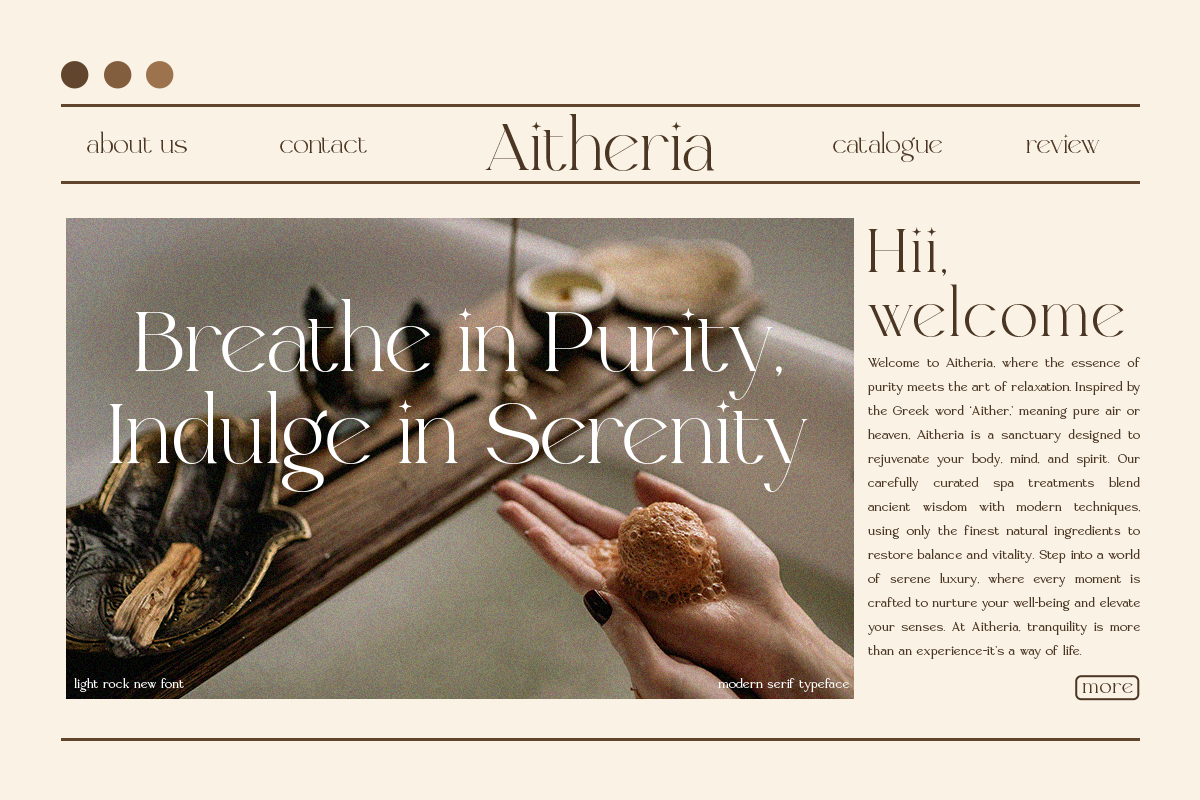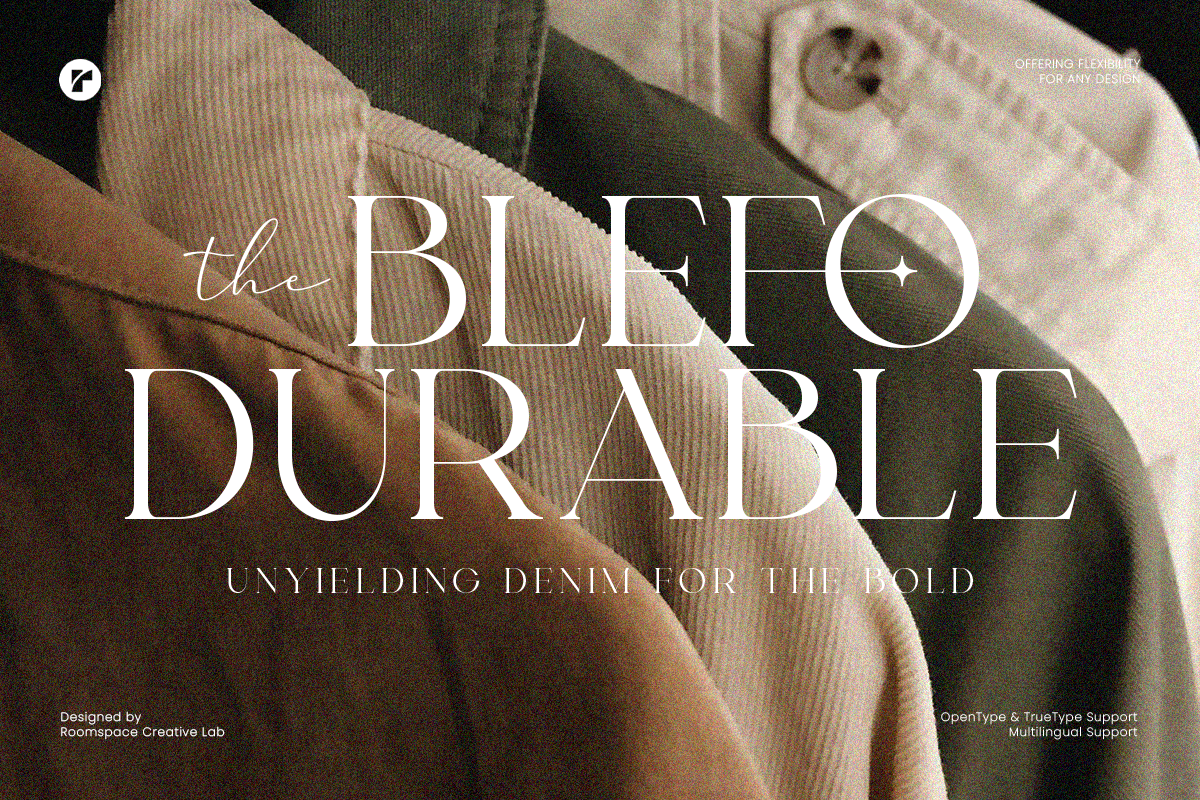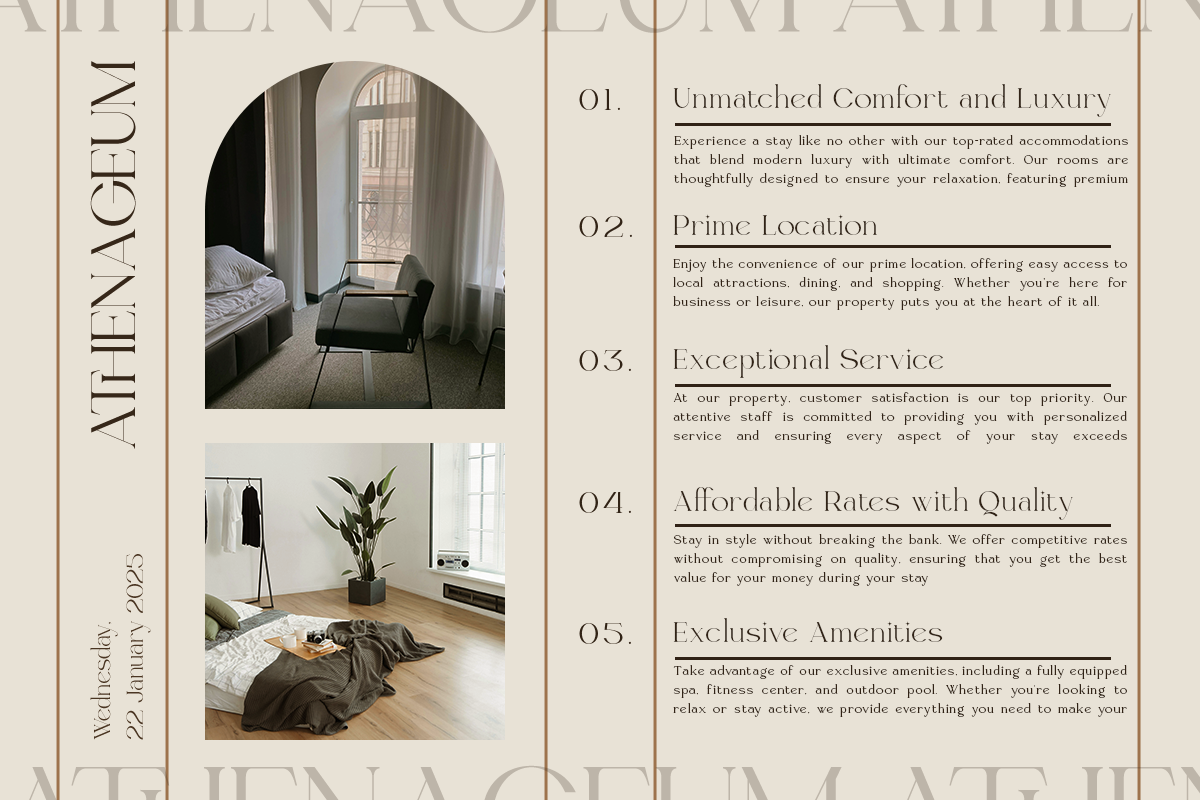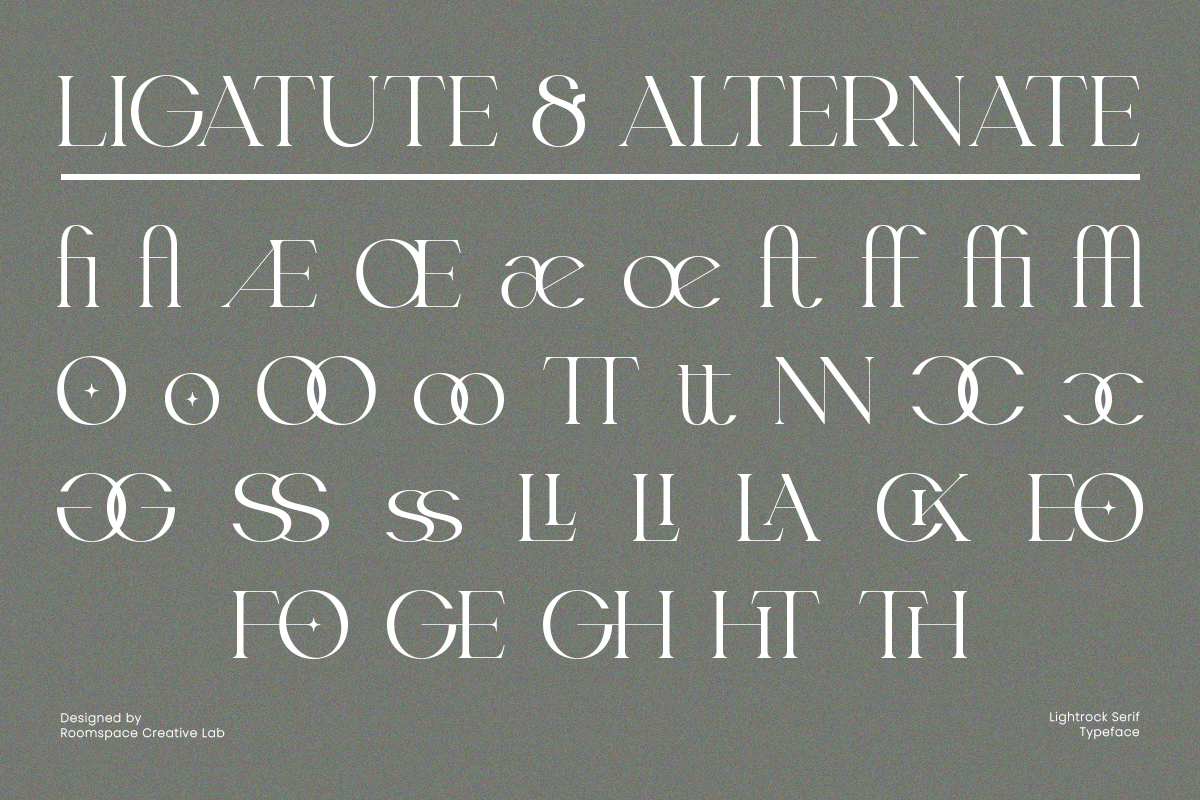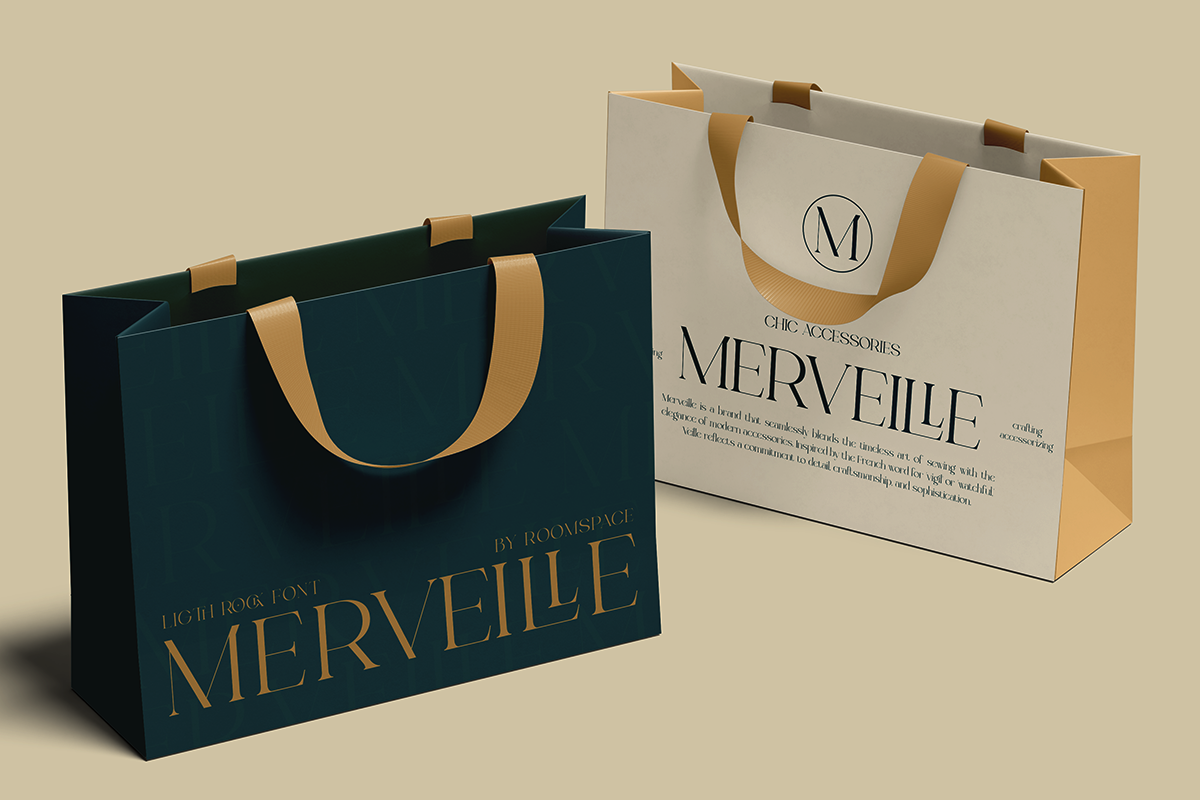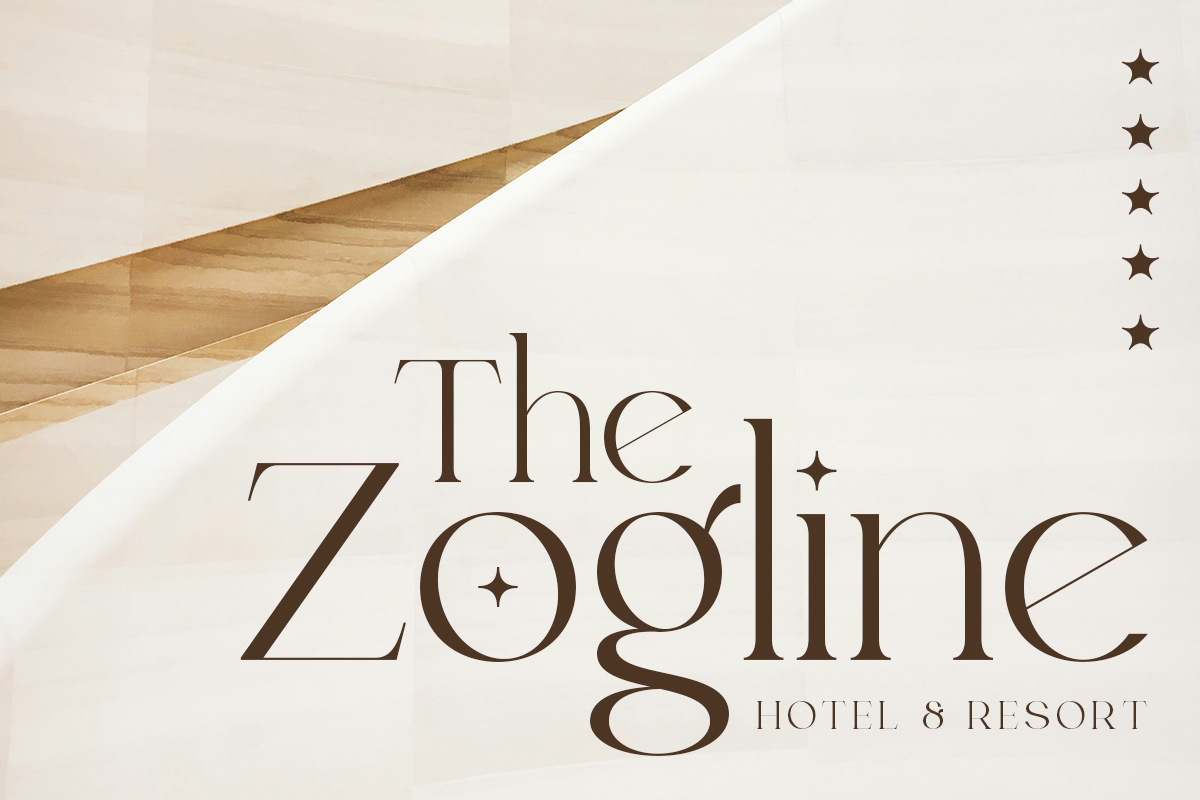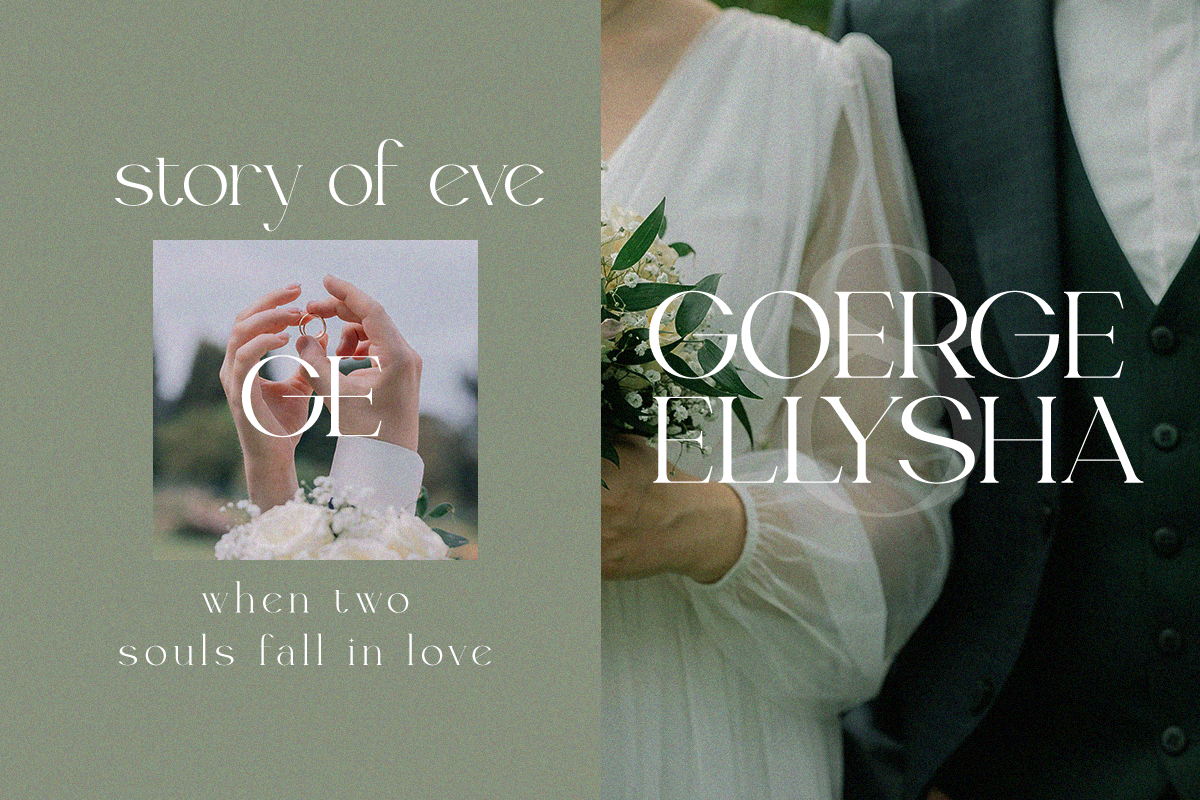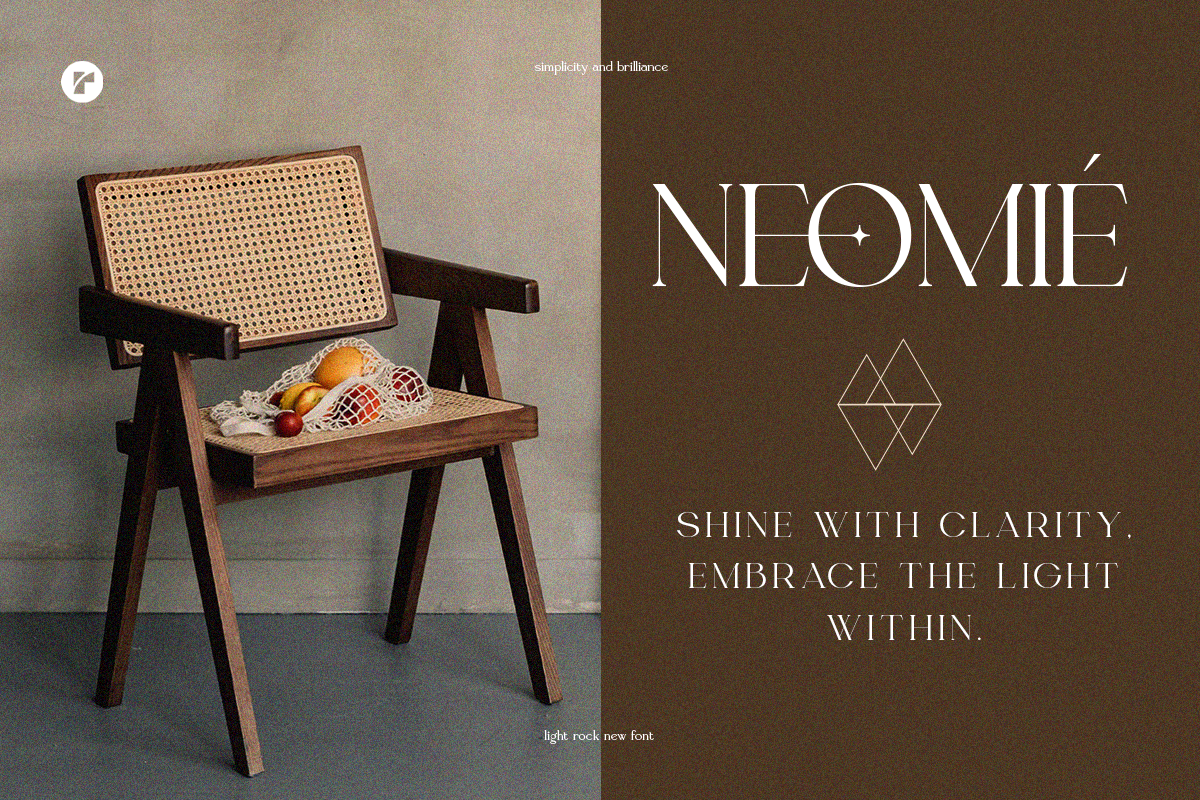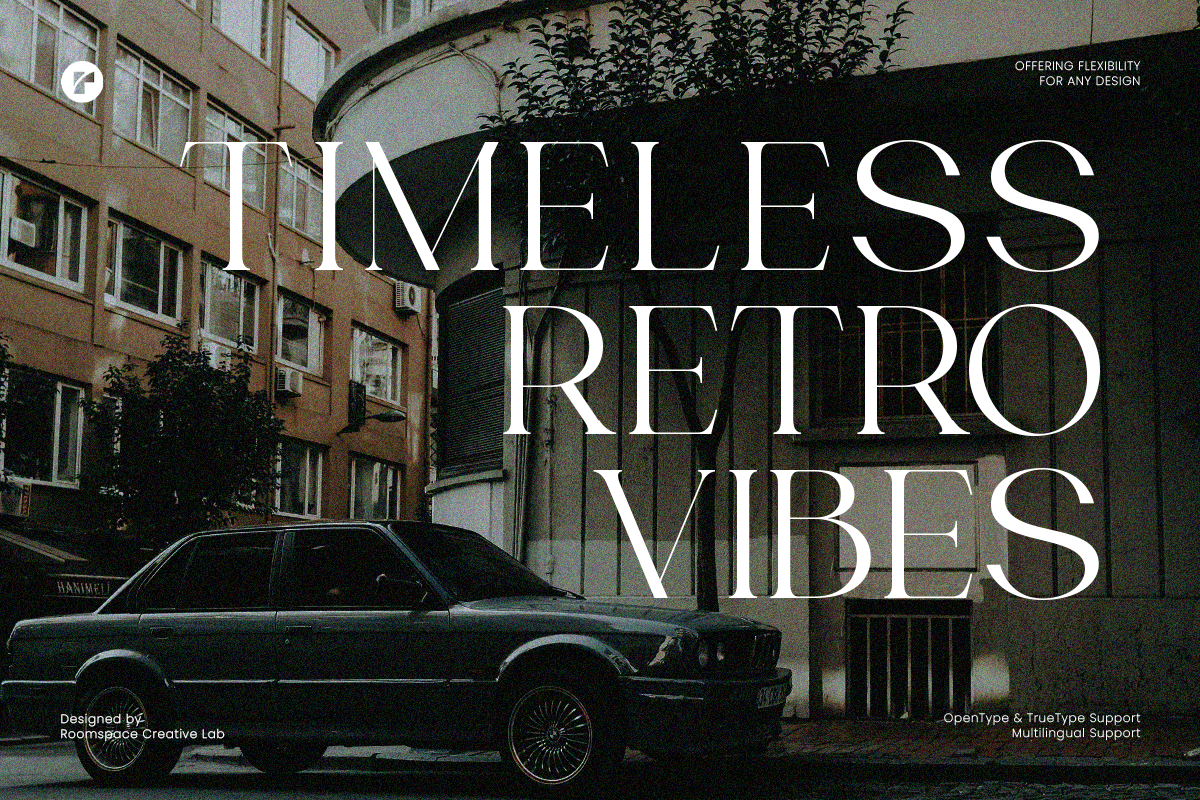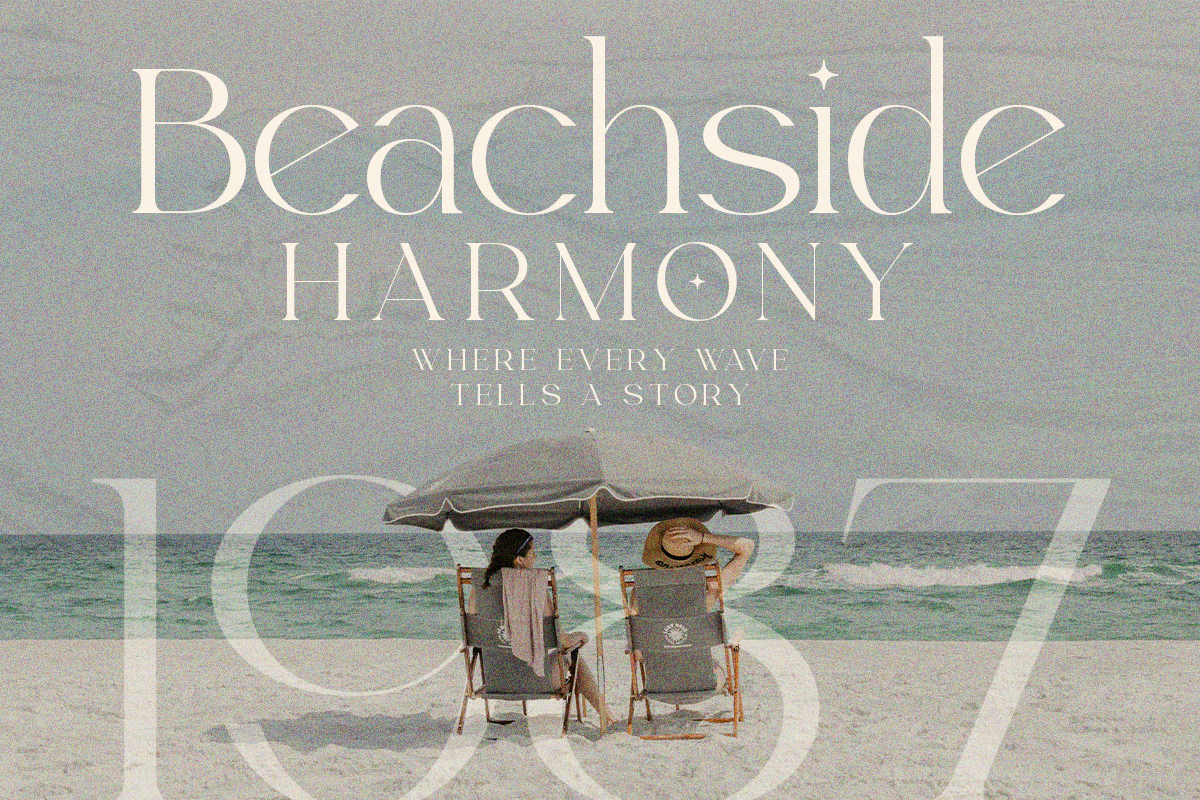
Light Rock - Elegant Modern Serif
Light Rock is a refined serif font that flawlessly blends modern elegance with timeless sophistication. Designed to elevate your creative projects, this versatile typeface exudes luxury and class, making it an ideal choice for logos, branding, editorial layouts, wedding invitations, and upscale social media graphics.
With its sleek lines and balanced proportions, Light Rock delivers a premium aesthetic that is both stylish and sophisticated. Its elegant serif details bring a polished yet contemporary feel to any design, making it a perfect choice for those who value refinement and creativity.
Crafted for flexibility and versatility, Light Rock includes unique ligatures and alternates, allowing you to create personalized and distinctive typography. Its multilingual support ensures your designs make an impact globally.
- Regular styles for dynamic design options.
- Uppercase & Lowercase characters, numbers, and punctuation.
- Unique ligatures for added creativity.
- Multilingual support for global audiences.
Whether you're designing luxury branding, classy packaging, or elegant digital graphics, Light Rock adds a touch of sophistication and charm to every creation.